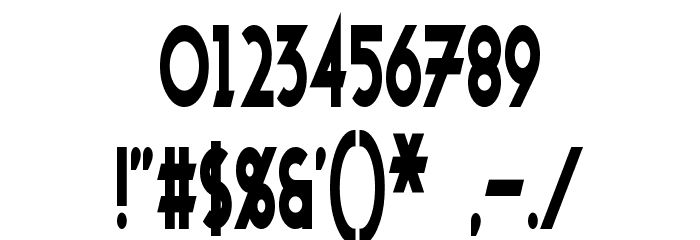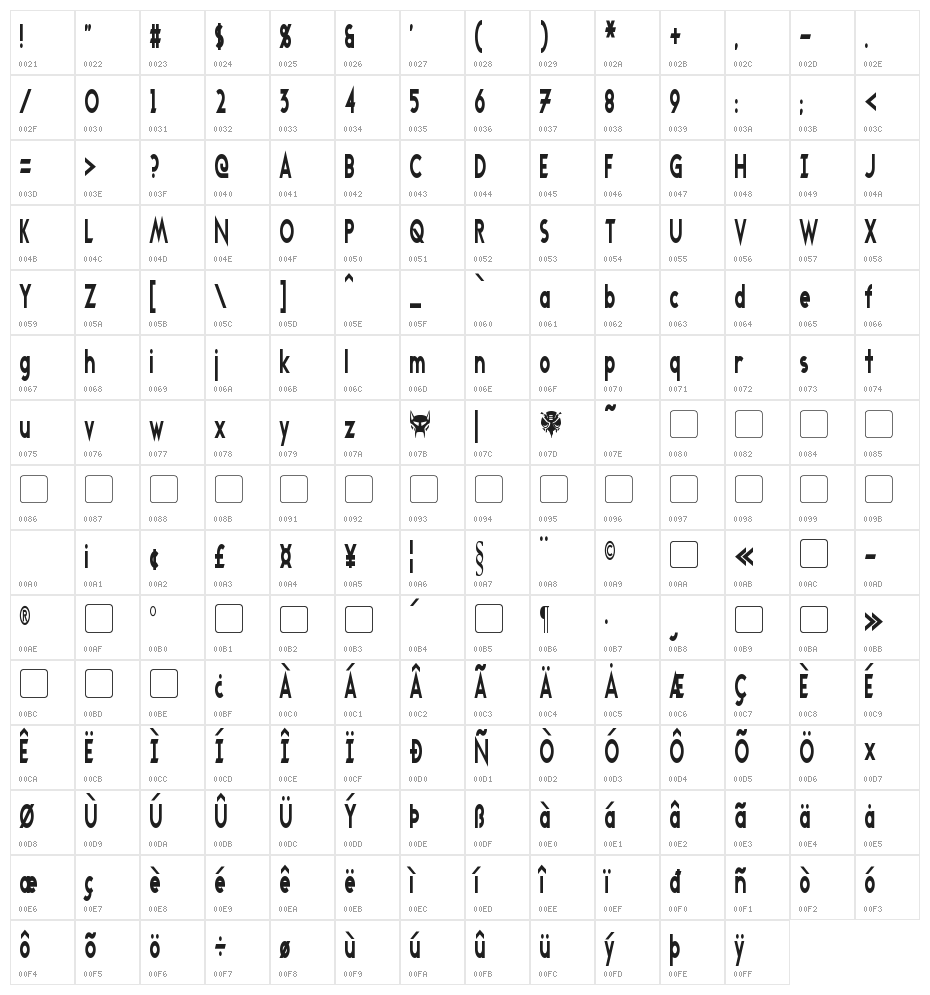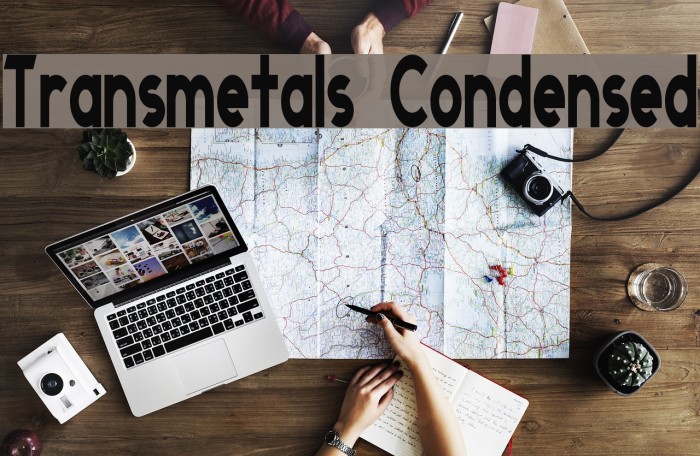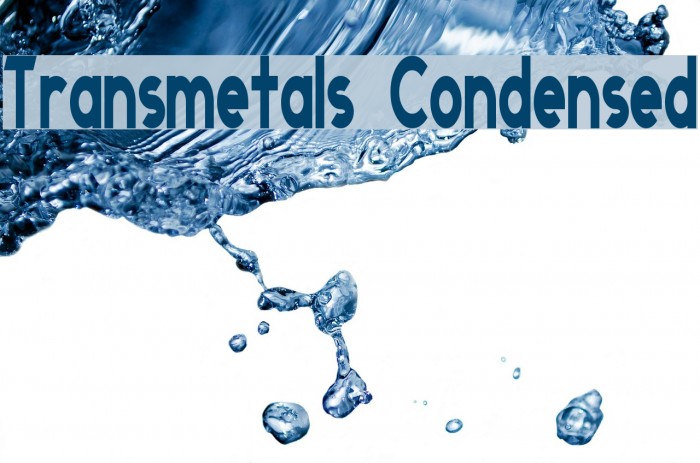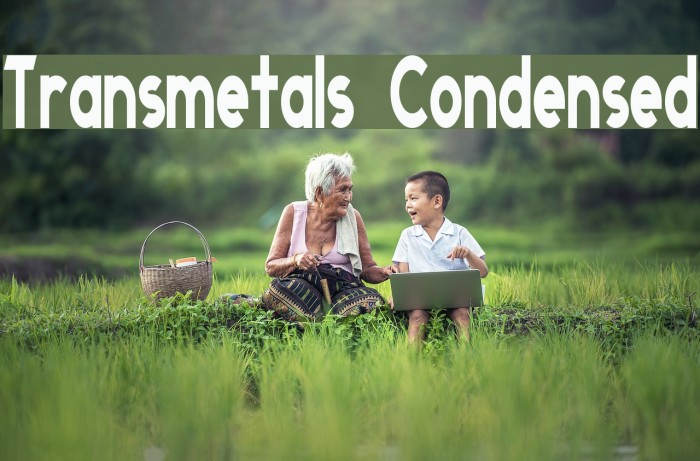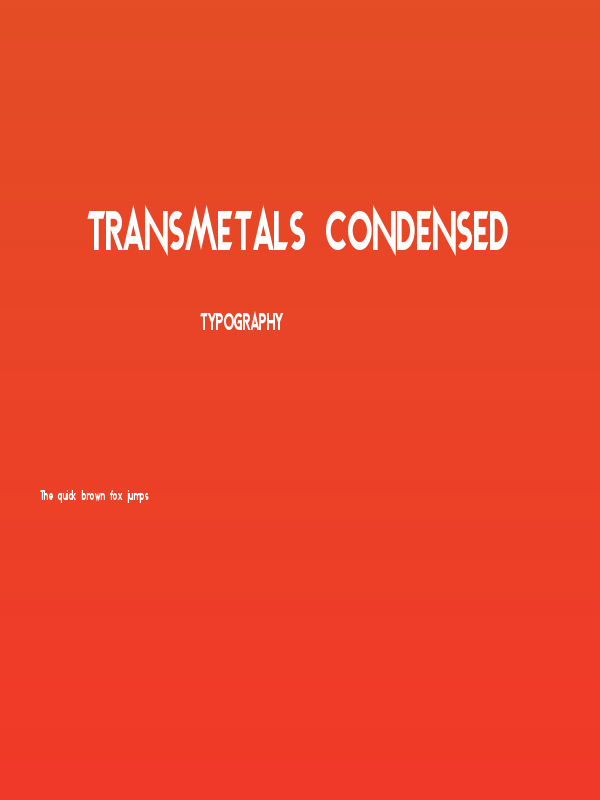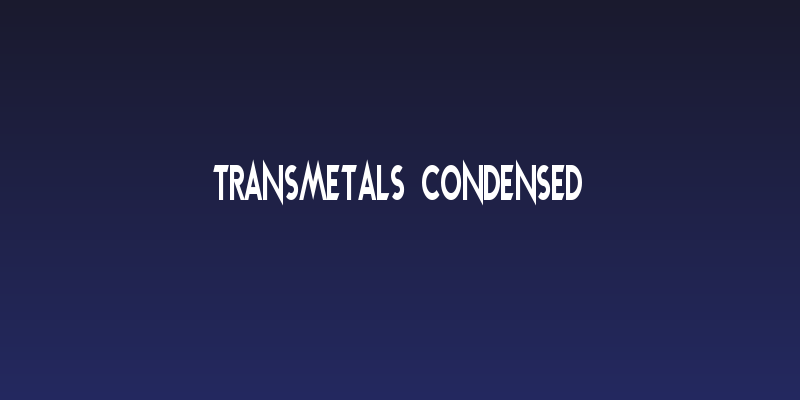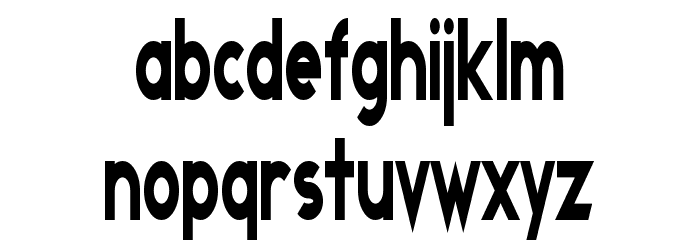
Transmetals Condensed Font
This font features a bold and geometric design with a condensed width, giving it a strong and impactful appearance. The uppercase letters are angular and sharp, while the lowercase letters maintain a consistent style with slightly rounded edges. The numerals are clear and distinct, matching the overall boldness of the alphabet. Special characters are well-defined and integrate seamlessly with the rest of the font. The uniformity in stroke width across all characters provides a cohesive look, making it suitable for attention-grabbing headlines and modern design projects.
Proposed ProjectsIdeal for modern branding, poster design, headlines, and digital media where a strong visual impact is needed.